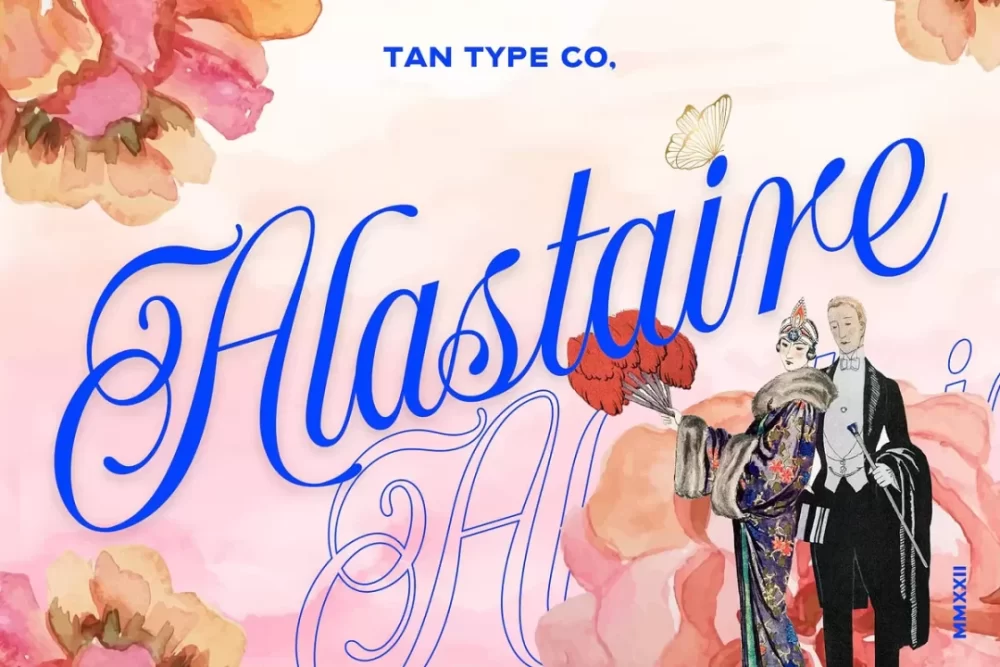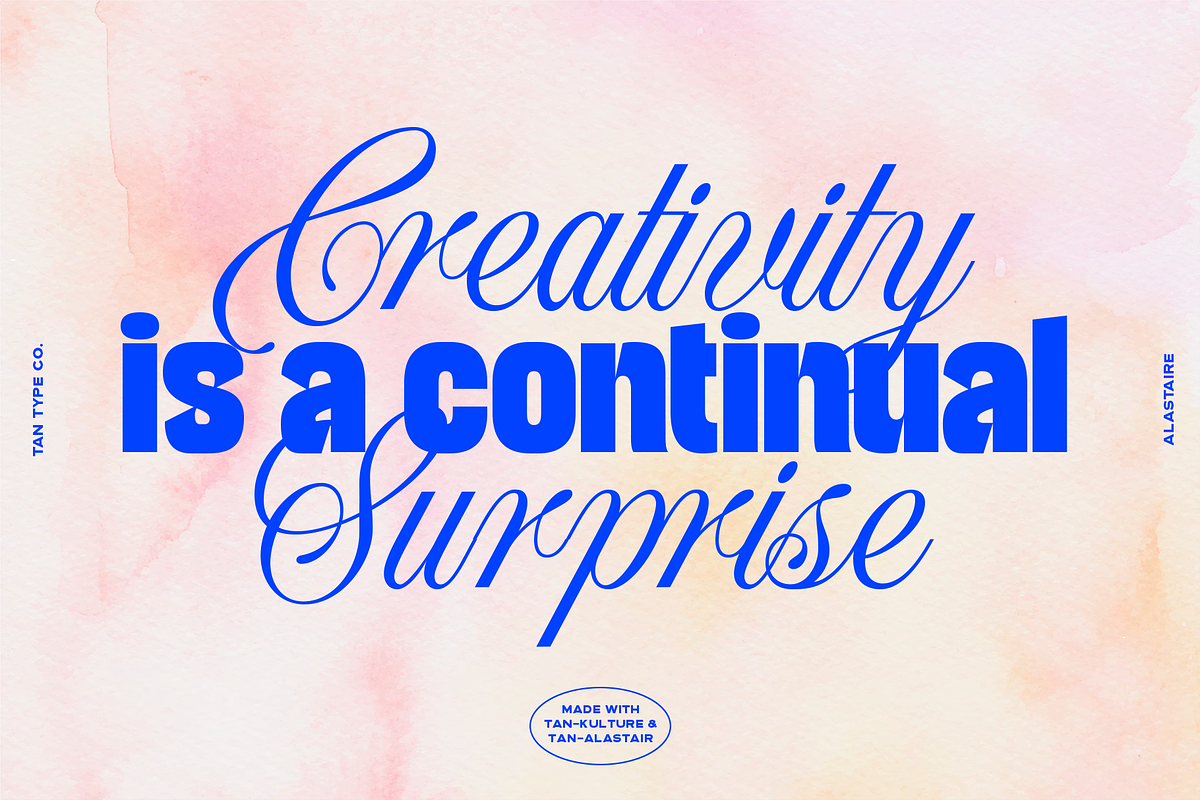
Tan – Alastaire is a classy display script inspired by the Romantic era. It’s unique on its own and can be perfectly paired with most of our typefaces. A sweet compliment to a serif or sans serif, either a bold one or subtler ones. It also supports multilingual.